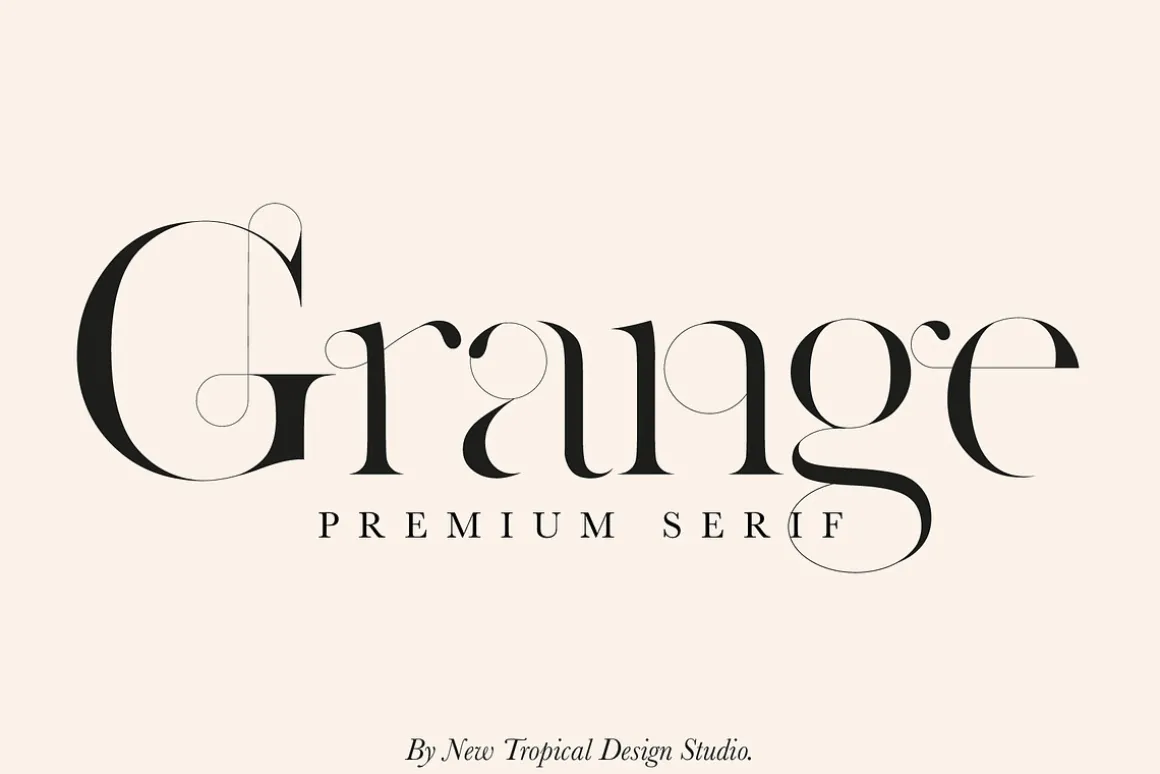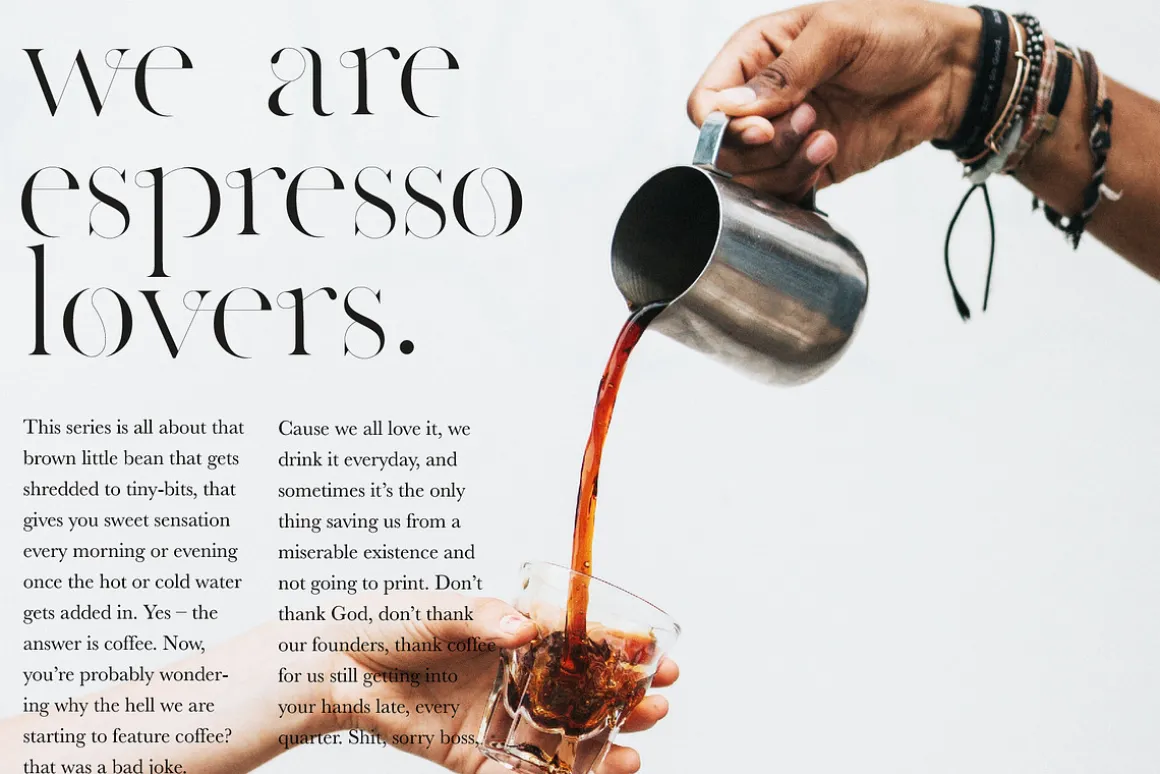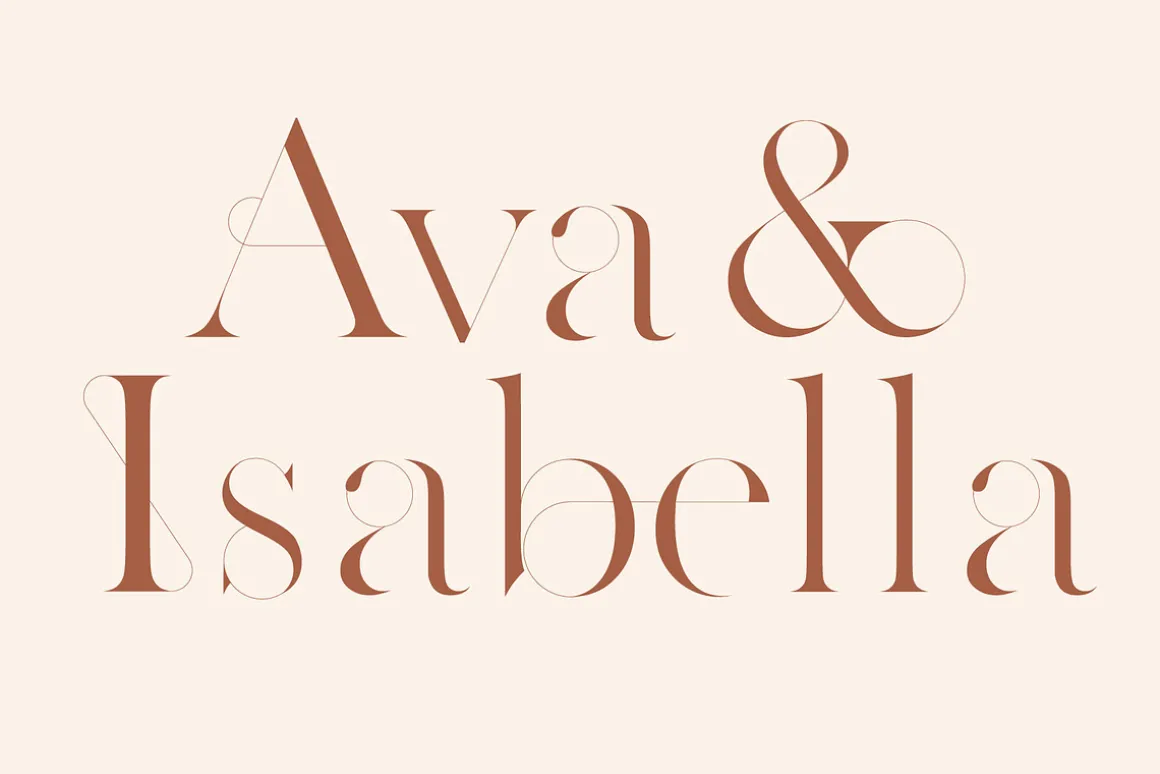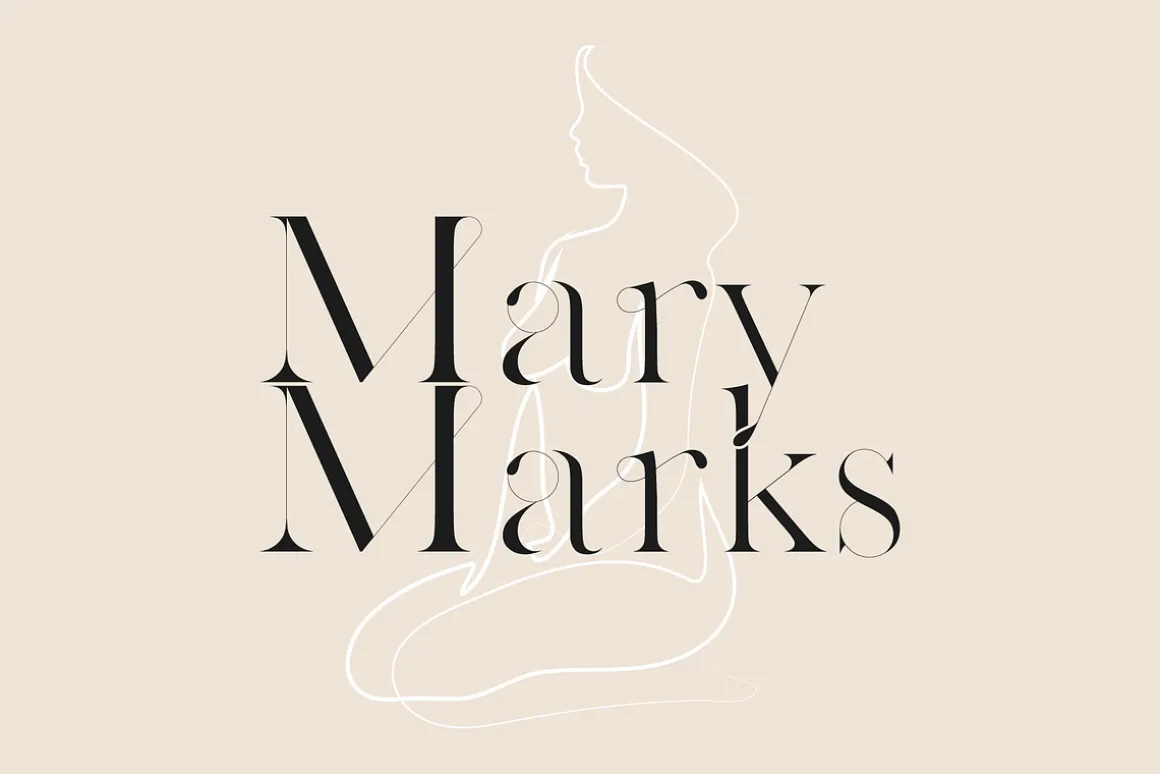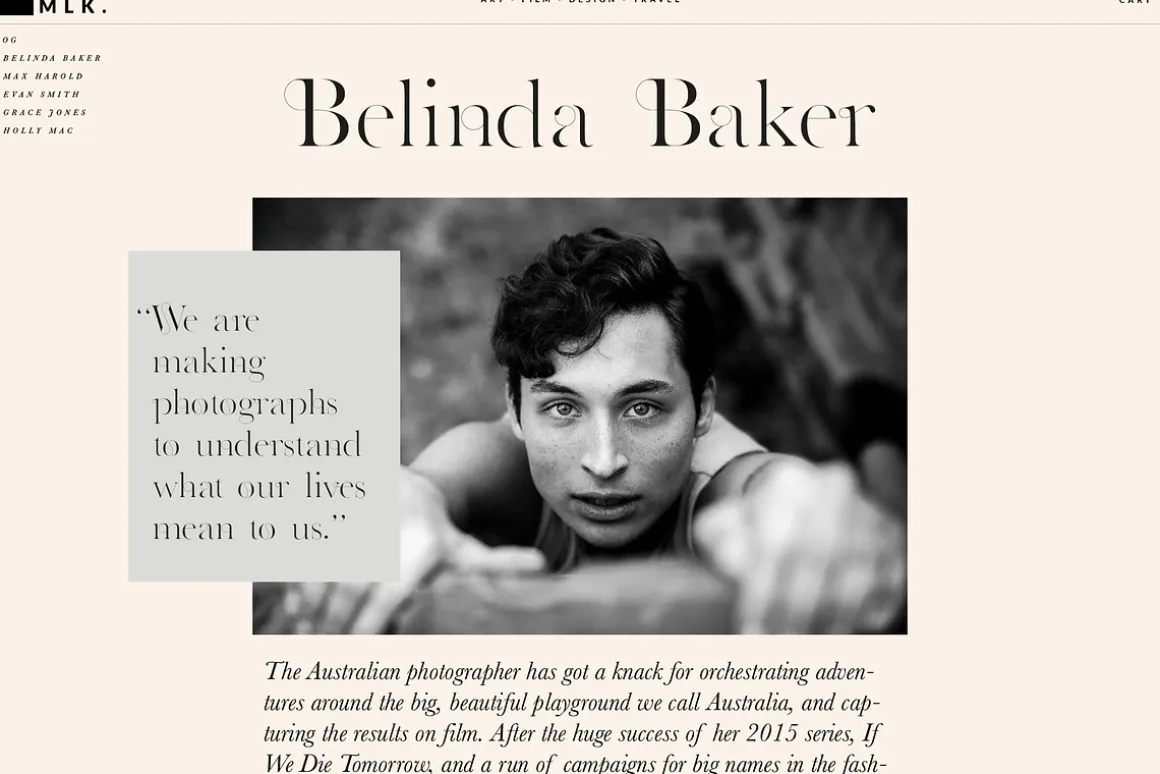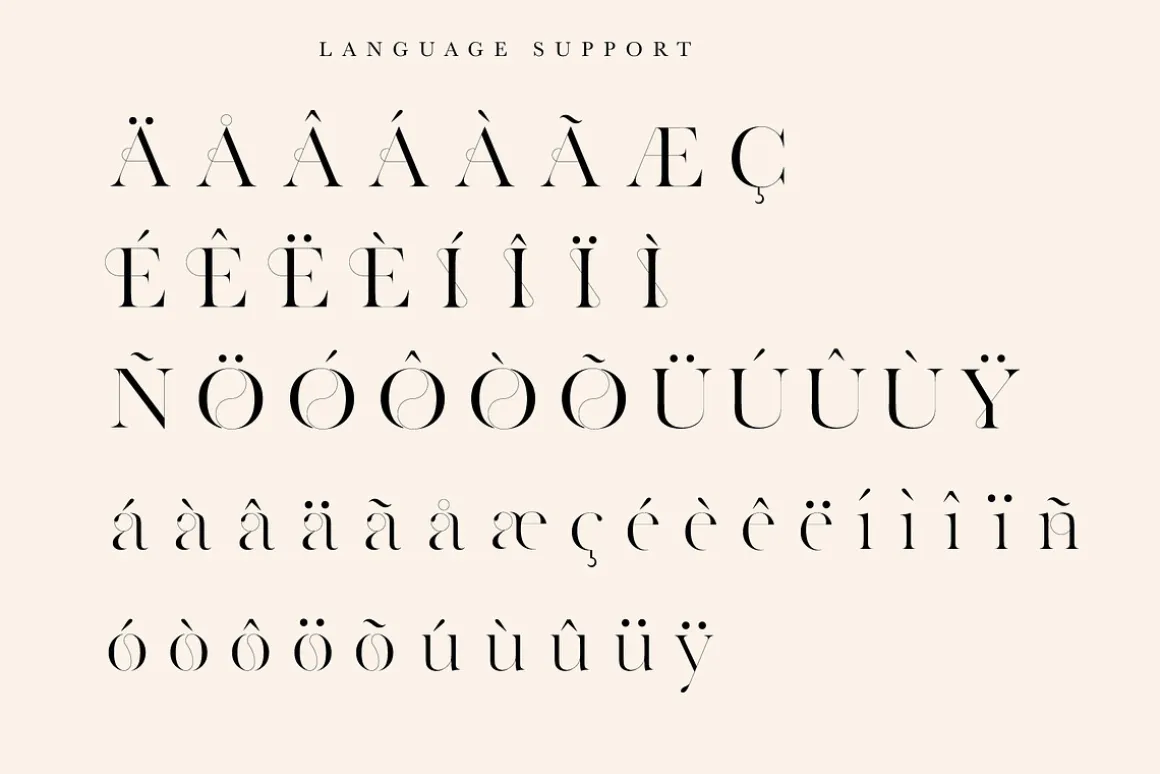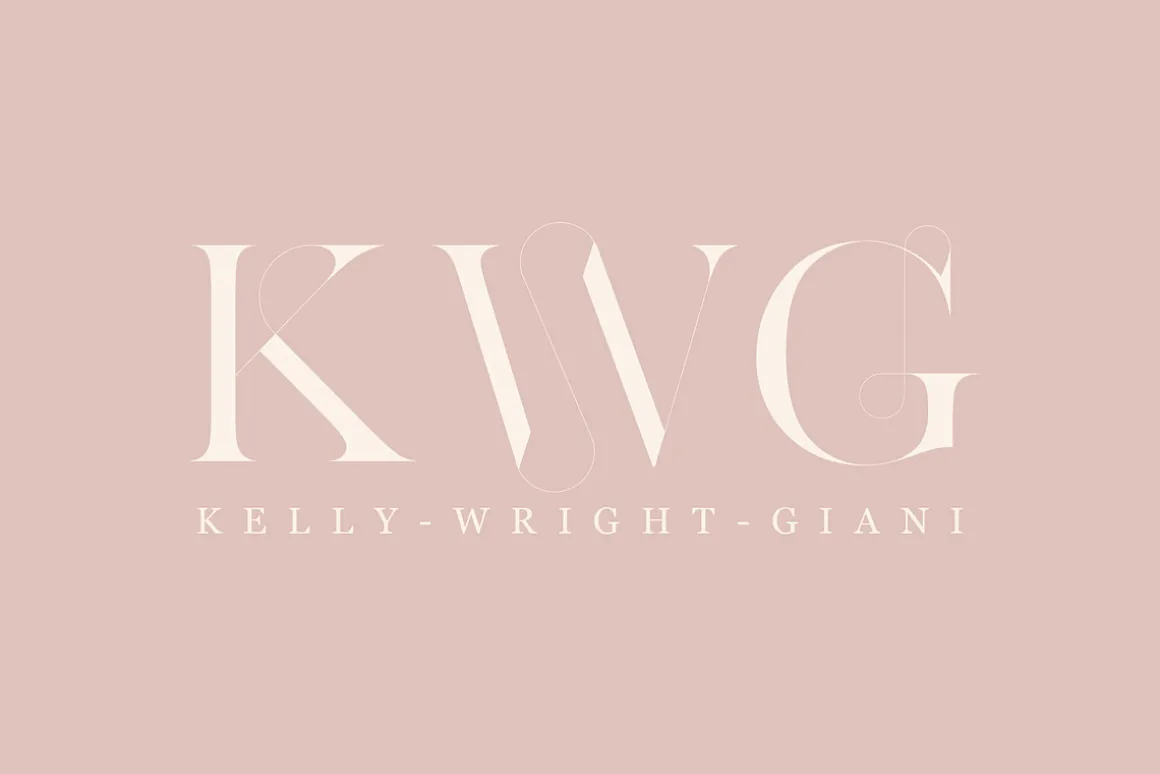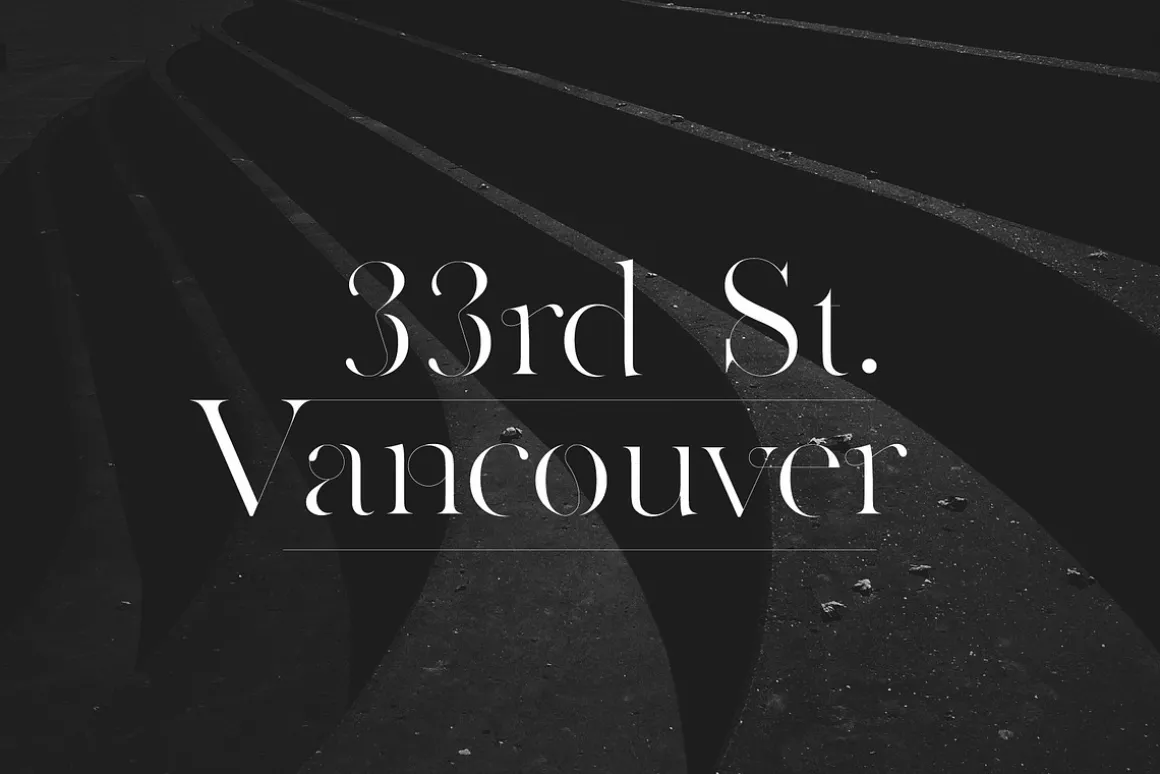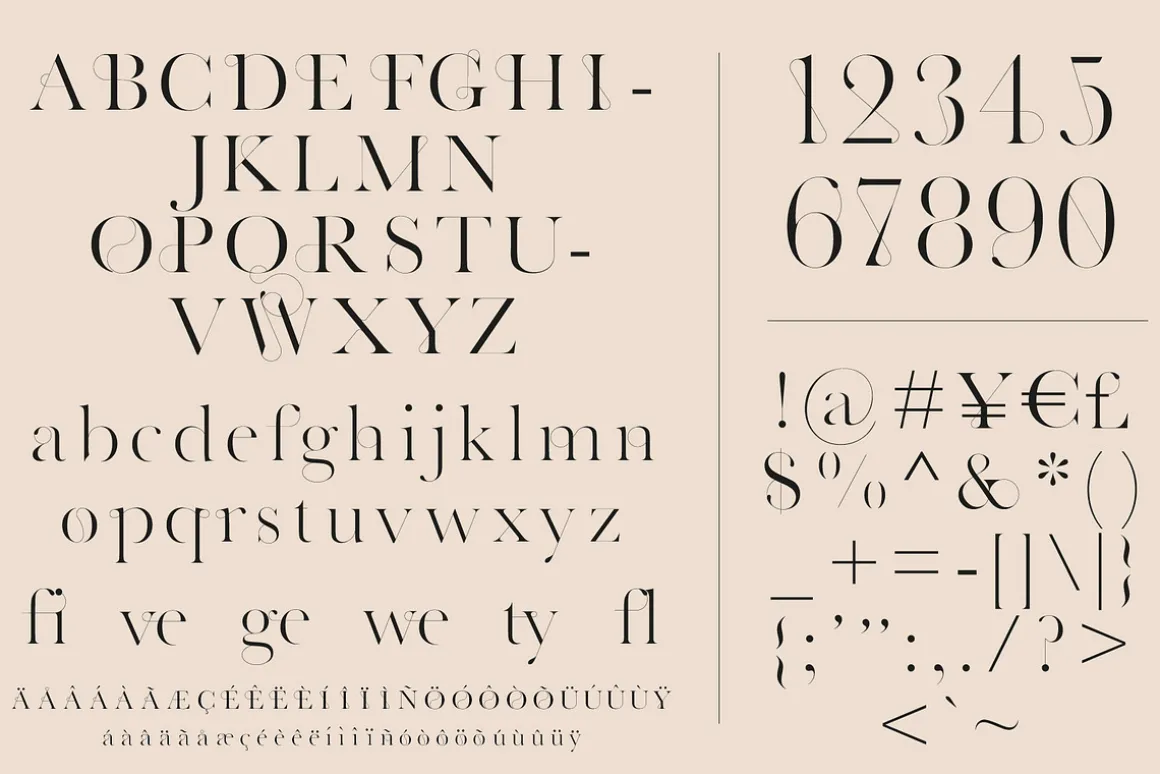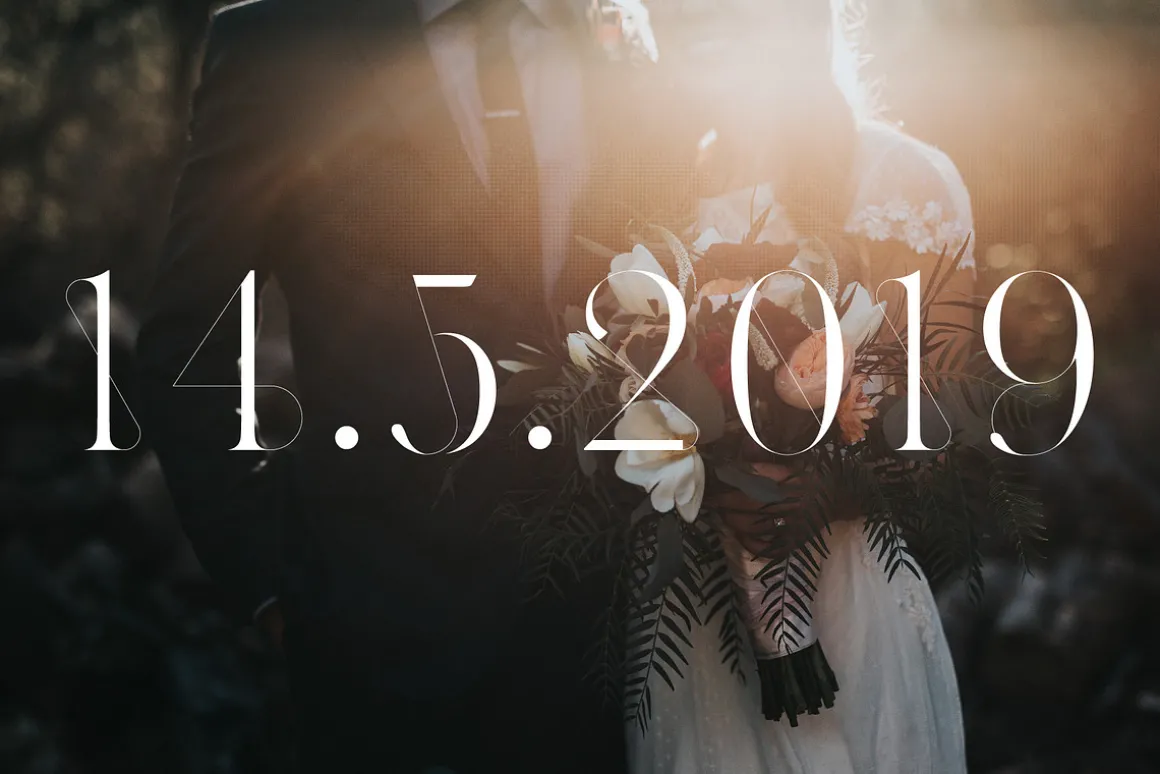
I can’t stop making previews for this font. It’s too much fun! Of all the fonts i have designed, this is my favourite. The bold strokes and delicate flourishes are really doing it for me and i hope it does for you!You won’t find curves like this on any regular old serif font. This is modern meets classic, minimal meets decorative. Take a look at the numbers…go on, take another look. They have curves going all sorts of unusual places. If you want to stand out then this is the font for you. Weddings or headings, fashion spreads to mastheads, monogram or Instagram, Grange can do it!